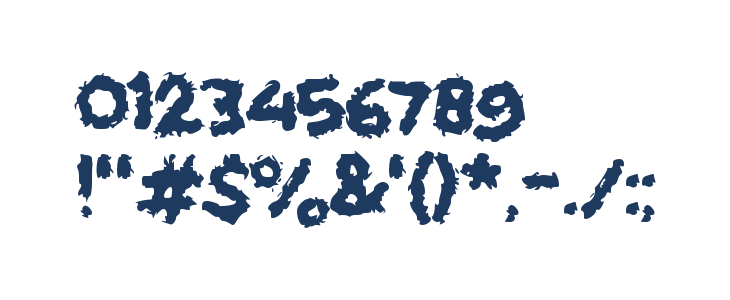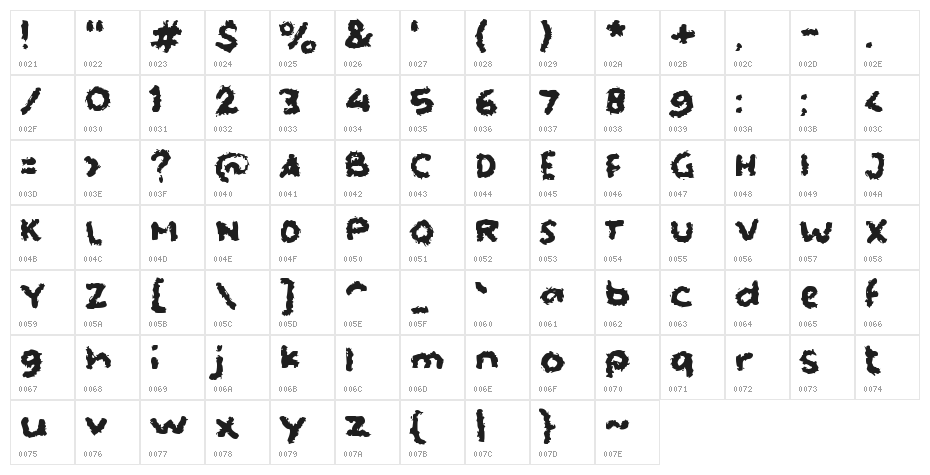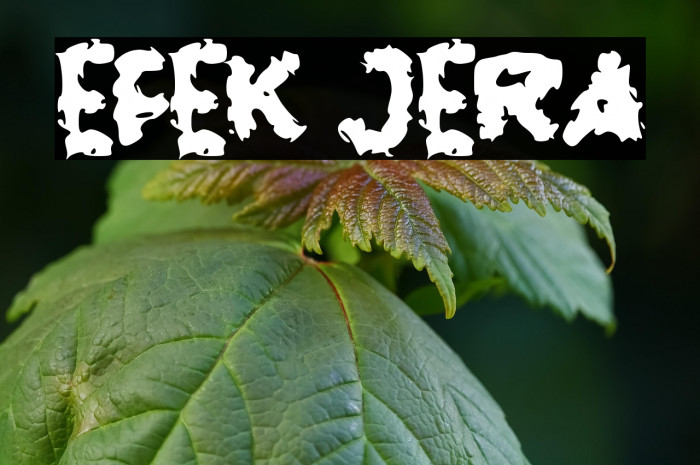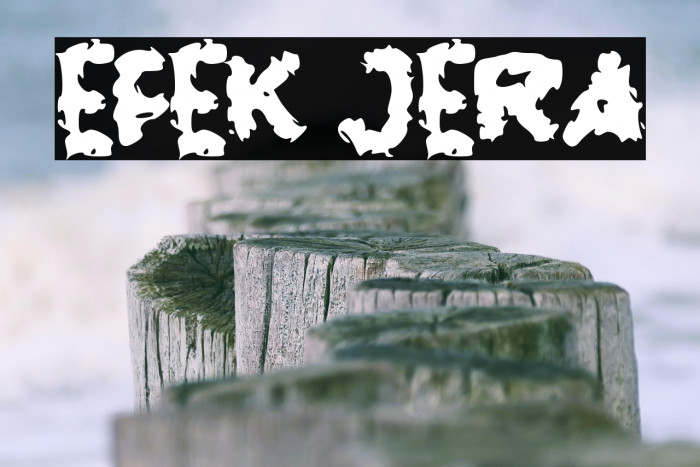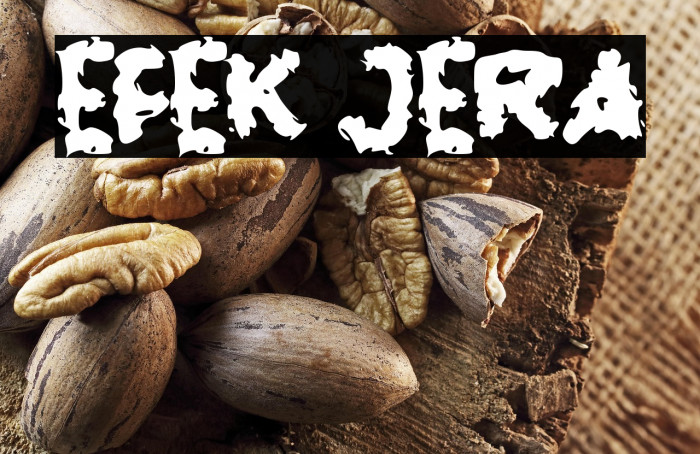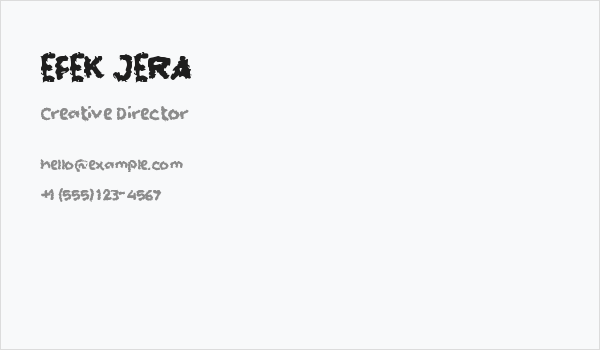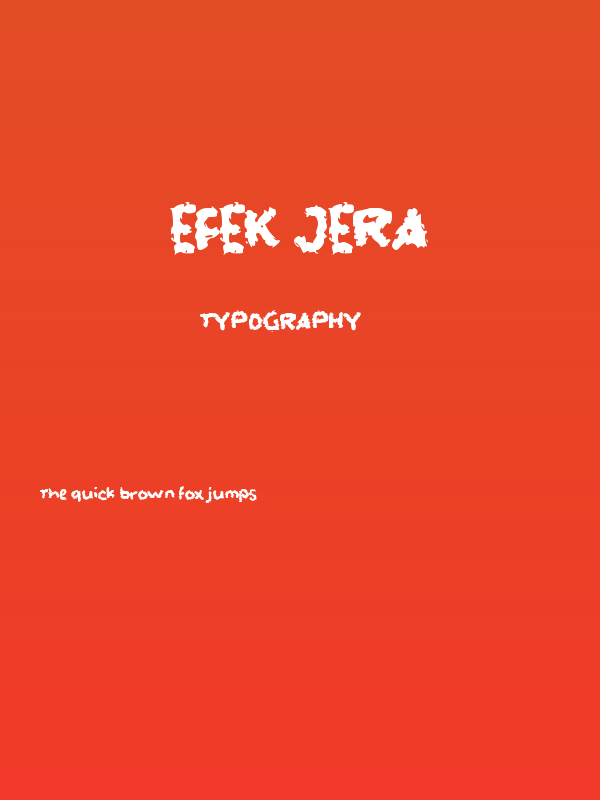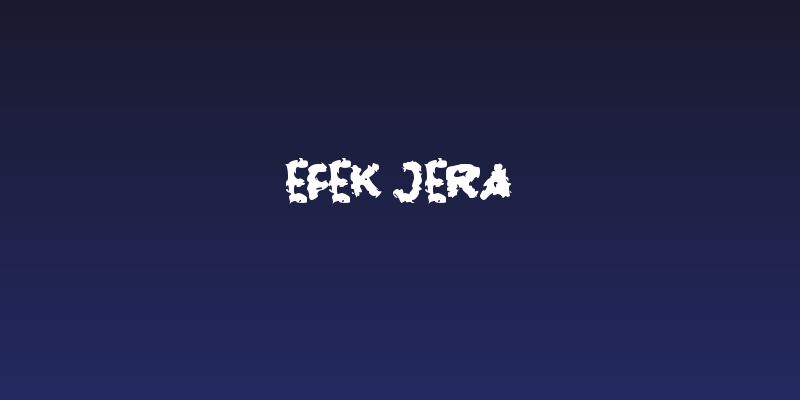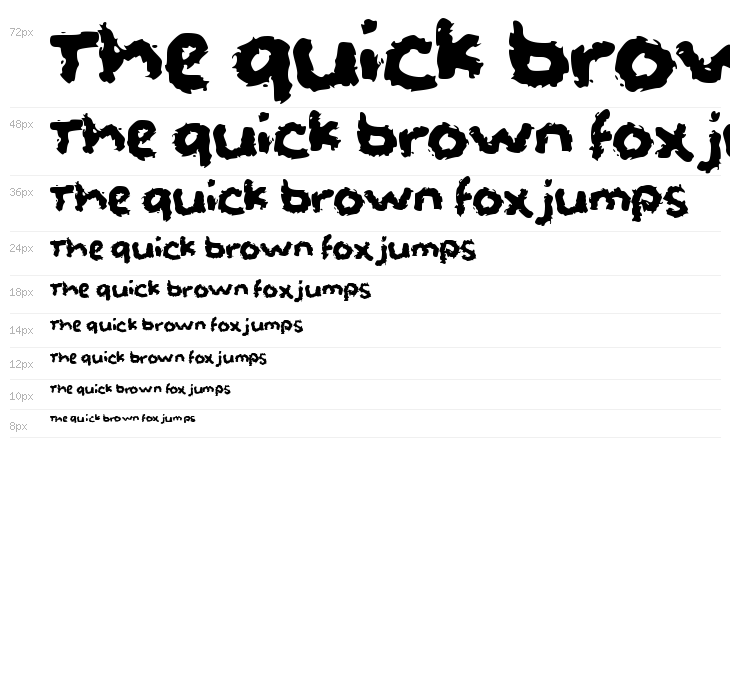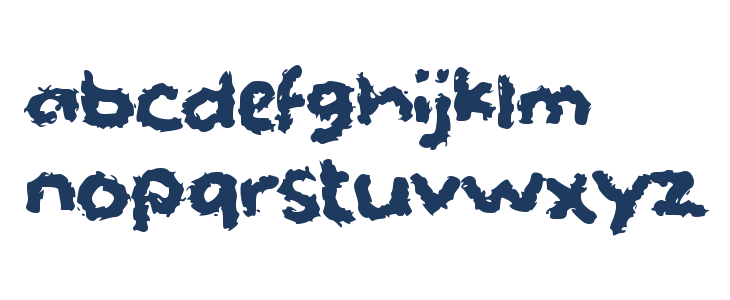
EFEK JERA Font
EFEK JERA Description
This font features a highly decorative and distressed style, with each character appearing as if it has been eroded or splattered with ink. The edges are irregular and jagged, giving it a chaotic and dynamic appearance. The uppercase and lowercase letters maintain a consistent visual theme, with bold strokes and a rough texture. Numbers and special characters follow the same design, ensuring uniformity across all glyphs. This font's unique aesthetic makes it stand out, ideal for projects that require a strong visual impact.
| Proposed Projects | Ideal for horror-themed designs, album covers, posters, and any project requiring a bold, edgy look. |